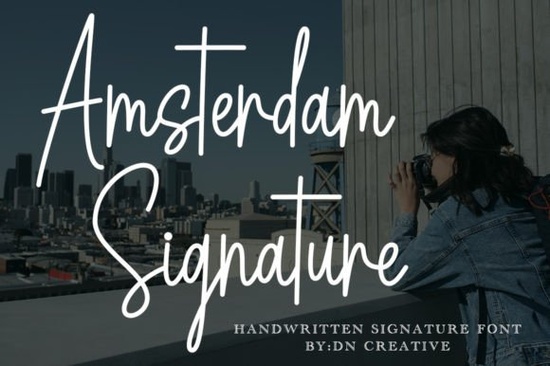
If you're looking for a script font that feels both modern and effortlessly elegant, Amsterdam Signature Font is worth checking out. It’s a monoline script with clean lines and thoughtful details perfect for branding, invitations, social media graphics, or any project where a personal touch matters. The font is PUA encoded, which means all the swashes and alternate glyphs are easy to access without needing special software or keyboard shortcuts.
What makes Amsterdam Signature stand out?
Unlike many script fonts that feel either too busy or too plain, this one strikes a balance between simplicity and refinement. Its consistent stroke width gives it a sleek, contemporary look while still feeling hand-drawn and warm. Whether you're designing a wedding invite, a boutique label, or a motivational quote for your shop, the subtle flourishes add character without overwhelming the message.
The font includes a full range of ligatures and stylistic alternates, so you can customize each piece to fit your style. Because it's PUA encoded, you don’t have to worry about missing characters or complicated workflows. Just open your design tool like Adobe Illustrator, Photoshop, or Canva and start using the full set right away.
Great for everyday creative work
Designers, crafters, and small business owners often need fonts that are reliable and versatile. Amsterdam Signature Font fits that role well. You can use it for:
- Personalized stationery and greeting cards
- Branding elements like logos, business cards, and packaging
- Print-on-demand products (think mugs, T-shirts, wall art)
- Social media posts with a handmade feel
- Blog headers and title treatments that draw attention
It works especially well when paired with clean sans-serif fonts for contrast, but it also holds its own as a standalone choice.
How does it compare to similar fonts?
If you’ve explored other script fonts, you might have come across options like Amastay, Tail, or Tranquilo. Each has its own personality: Amastay leans toward softness and flow, Tail offers a bolder presence, and Tranquilo brings a boho-chic vibe. Amsterdam Signature sits in a sweet spot modern, minimal, and precise. It’s not as whimsical as some, nor as dramatic as others. If you want something polished yet approachable, it’s a strong contender.
For those who love layered, expressive designs, More Good Vibes Duo adds a playful twist with multiple styles. But if you prefer clarity and consistency, Amsterdam Signature delivers exactly that.
Don’t forget to experiment with size and spacing. A larger size with generous leading lets the script shine, while smaller text works well for captions or subtle accents.